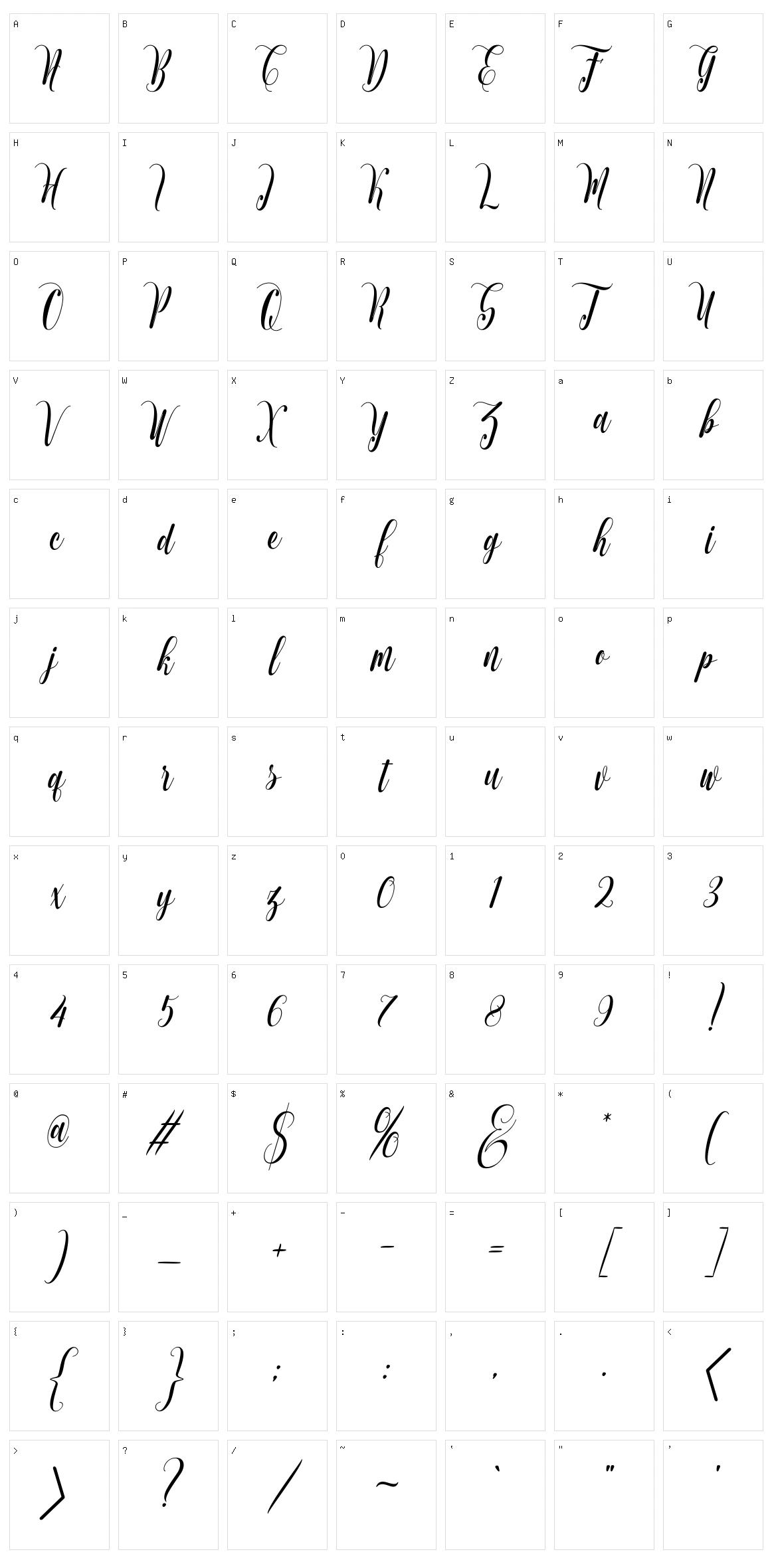
The free font Muthya is carefully designed by groenstudio, showcasing a thoughtful balance of creativity and usability and falls under the Script font style. When you download the ZIP file, it contains only 45.68 KB of font files, making it lightweight and quick to download. Please review the license details below to understand permitted usage and distribution rights. If license information is not available, we recommend using this font for personal projects only or contacting the author directly for commercial usage permissions.